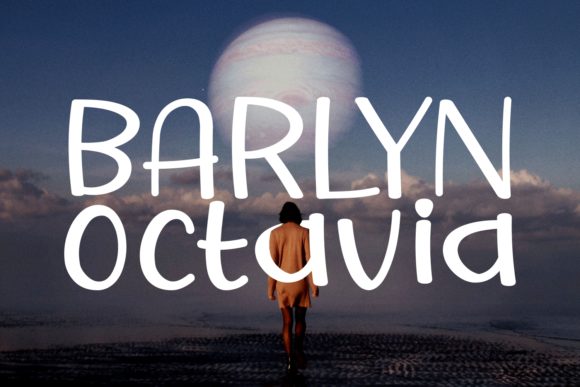
**Introducing Barlyn Octavia: The Enchanting Font that Will Elevate Your Designs**
Prepare to be mesmerized by Barlyn Octavia, an extraordinary display font that exudes charm and charisma. This captivating creation from the brilliant mind of Keithzo (7NTypes) is a masterpiece designed to ignite your imagination and elevate your designs to unparalleled heights.
Step into a world where fonts transform into vibrant personalities, each with its own unique story to tell. Barlyn Octavia is the embodiment of joy and exuberance, a playful and energetic font that leaps off the page with its infectious energy. Its bouncy curves and quirky angles dance before your eyes, creating a visual symphony that will leave you spellbound.
With Barlyn Octavia as your creative companion, you'll discover a newfound freedom of expression. This versatile font effortlessly adapts to your every whim, lending its enchanting character to a myriad of designs. Imagine your banner ads bursting with life and color, captivating your audience with their irresistible charm. Unleash your imagination and witness how Barlyn Octavia transforms your designs into captivating works of art.
Beyond its undeniable aesthetic appeal, Barlyn Octavia is a font of exceptional functionality. Its crisp and clean lines ensure effortless readability, making it the perfect choice for headlines, logos, and any other text that demands attention. Its unique letterforms will instantly add a touch of sophistication and distinction to your projects, making them stand out from the mundane.
But Barlyn Octavia is not merely a font; it's an invitation to embark on a creative adventure. It empowers you to express your individuality, to share your stories, and to leave an unforgettable mark on the world. With each stroke of this enchanting font, you'll weave a tapestry of emotions, connecting with your audience on a deeply personal level.
So, let your creativity soar and embrace the magic of Barlyn Octavia. Discover a world where fonts are more than just letters; they are the brushstrokes that paint the canvas of your imagination. Let Barlyn Octavia be your muse, your guiding light, as you create designs that captivate, inspire, and leave an everlasting impression.